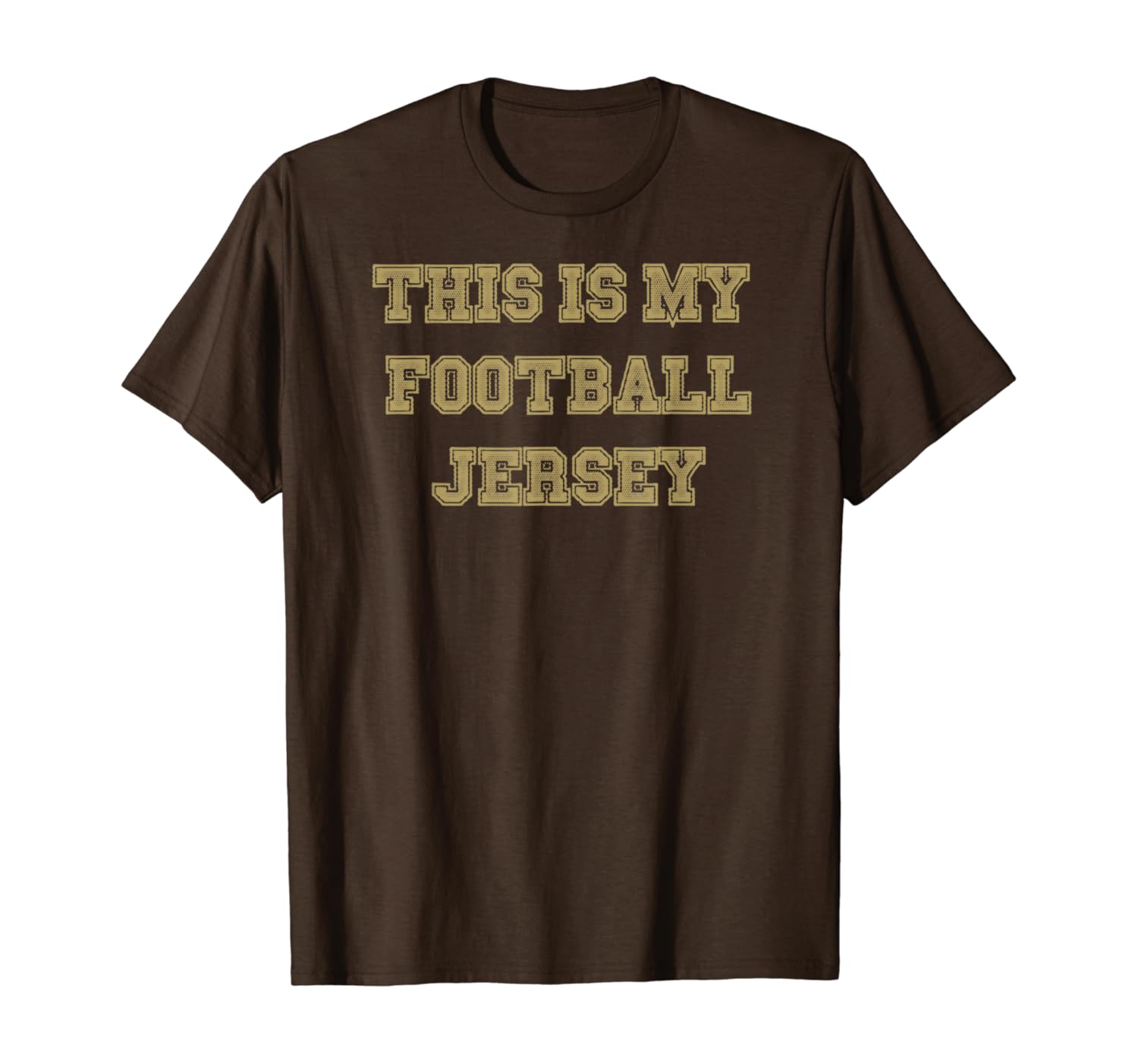
Mockup jersey long sleeve cdr. Jersey m54 is a classic and rugged font perfect for apparel design and the numbering and lettering on sports jerseys. How to make football player name set from ttfotf font. The left and right curly brackets hold alternate glyphs for numbers 2 and 5.
Size sports jersey by arfurware. The premierleague font contains 77 beautifully designed characters. My version of another classic sports font.